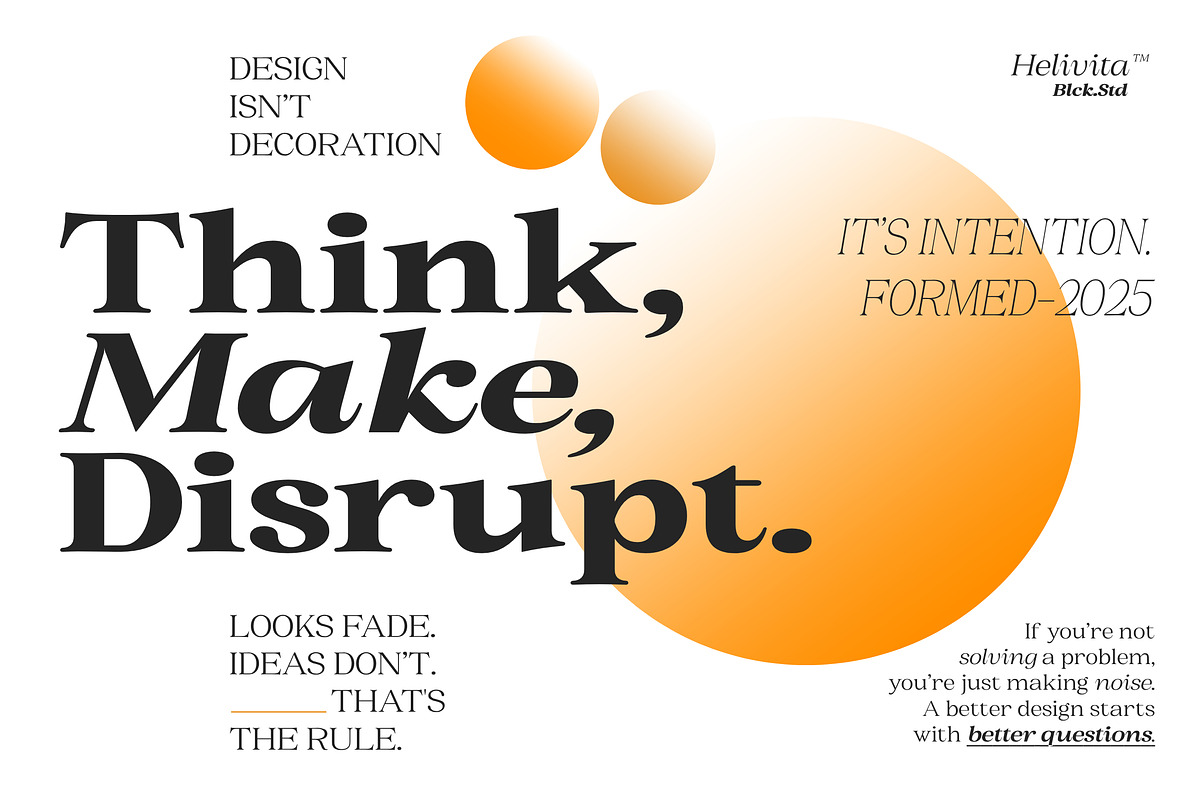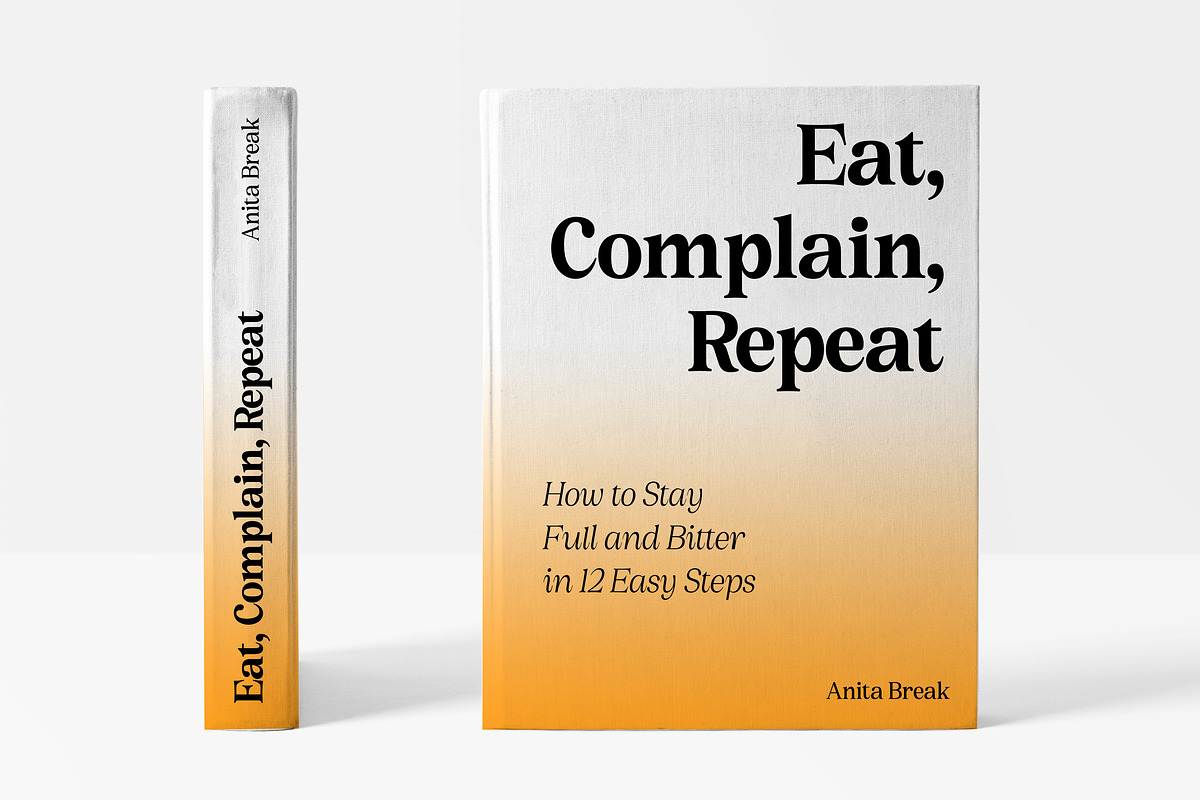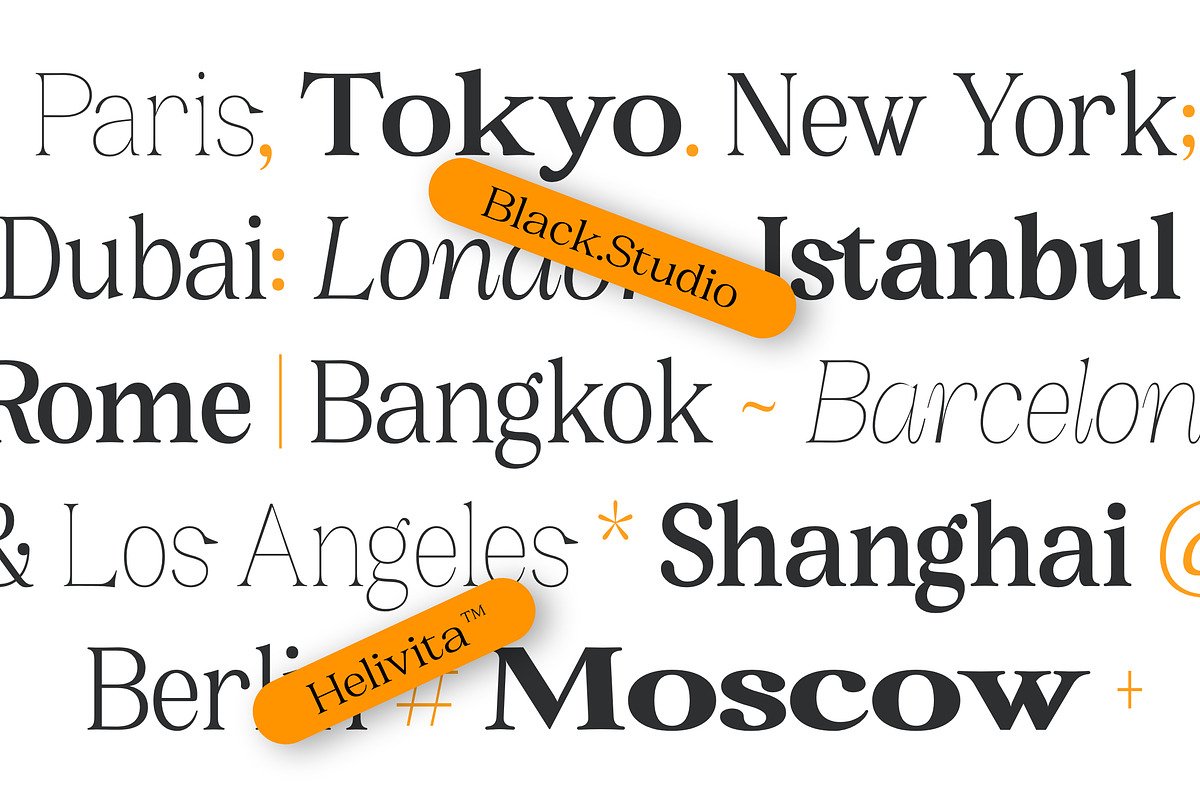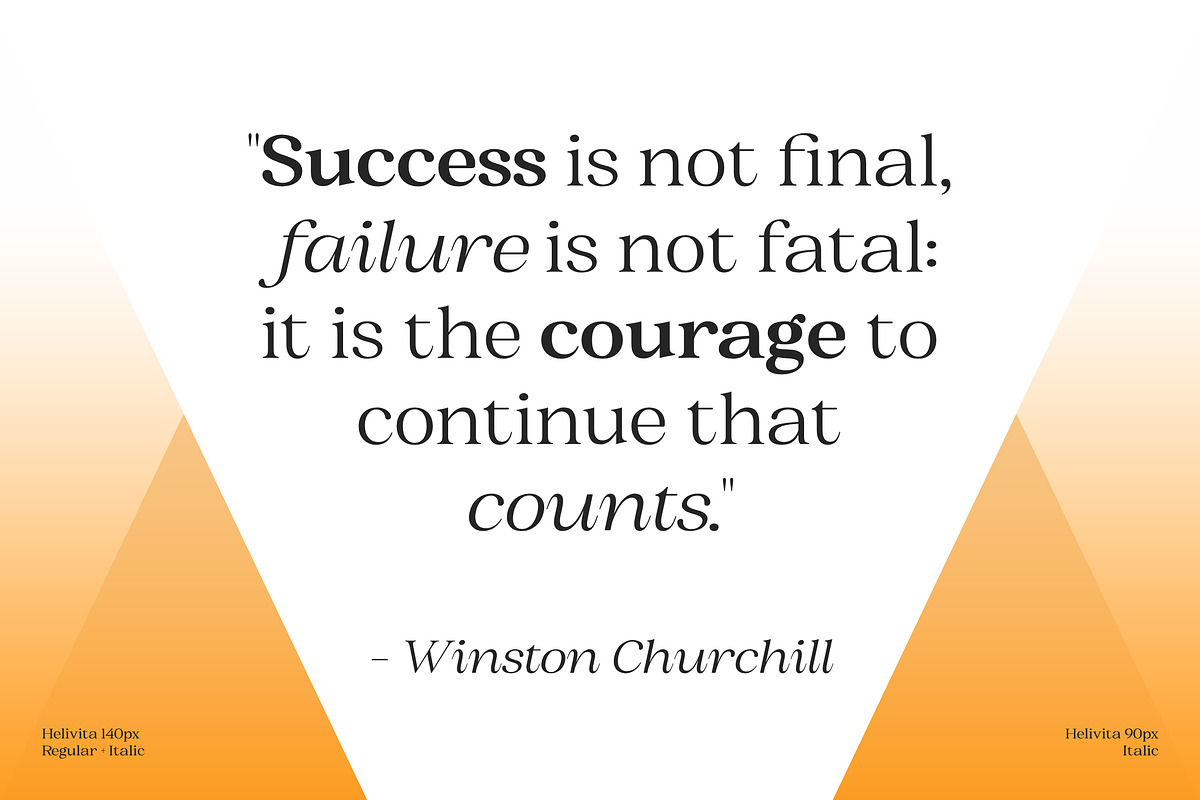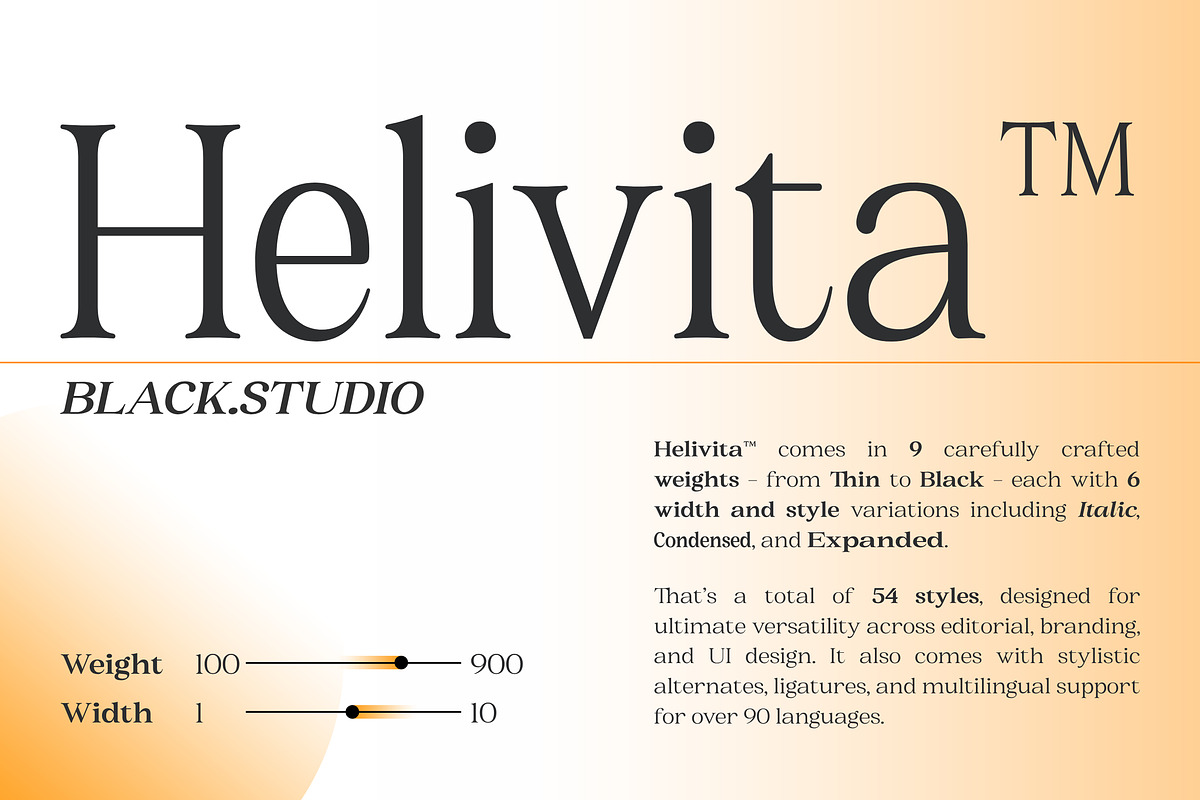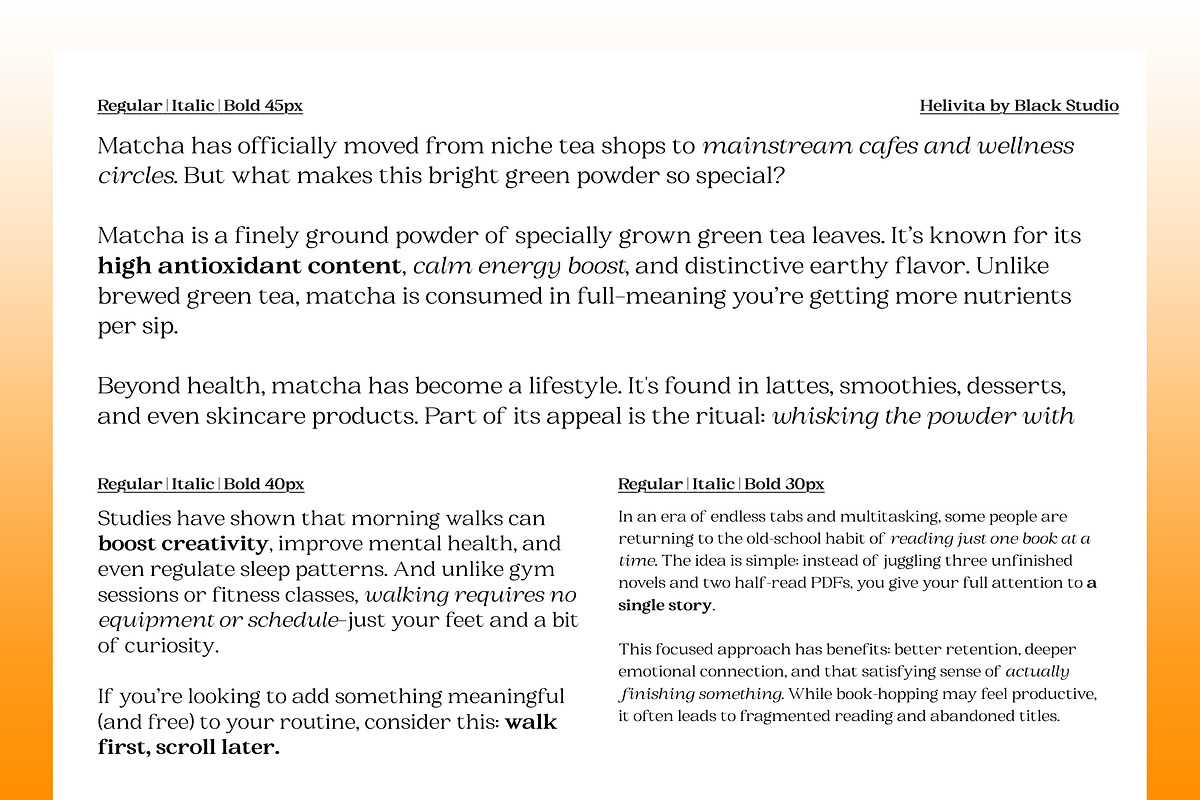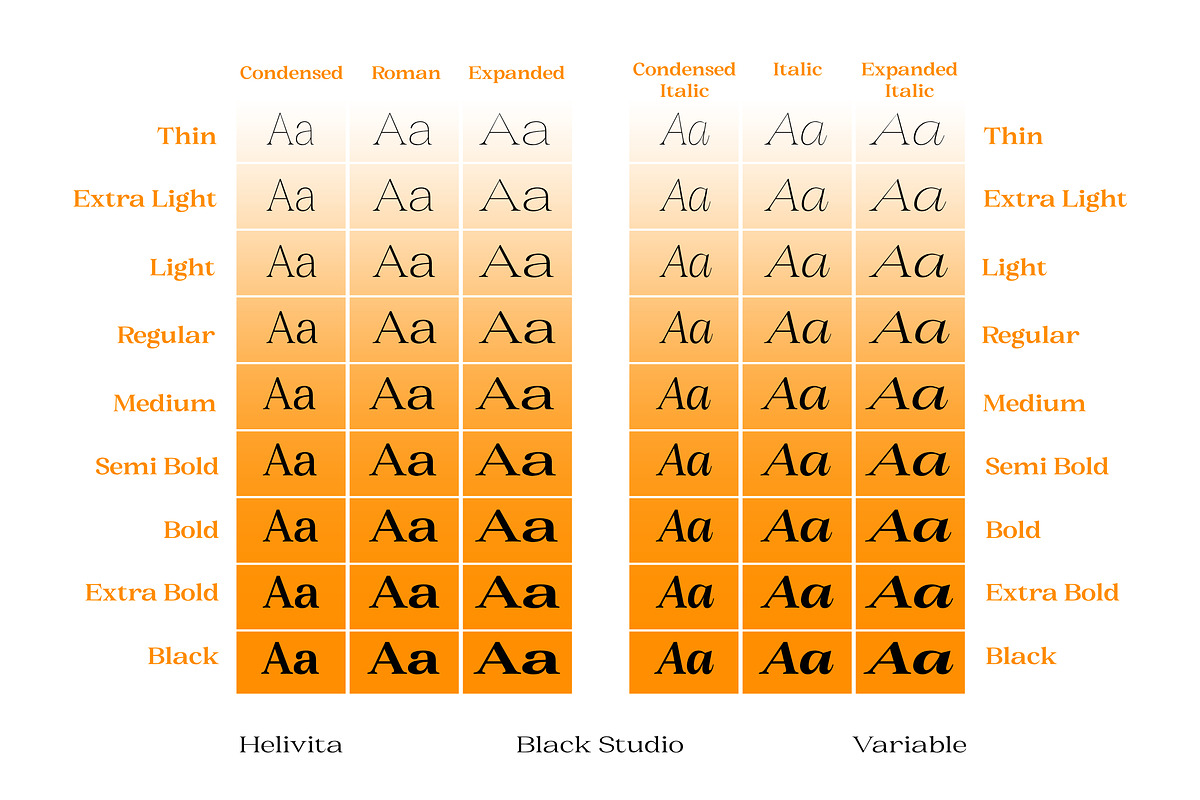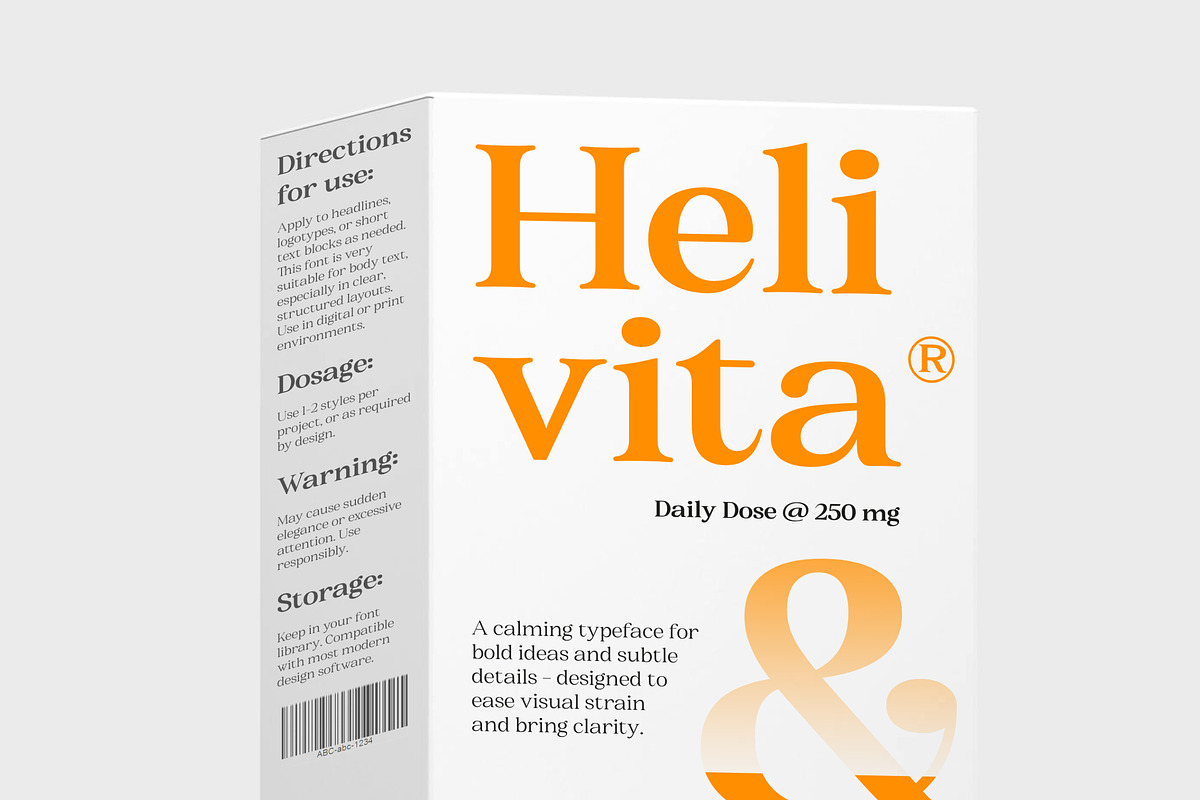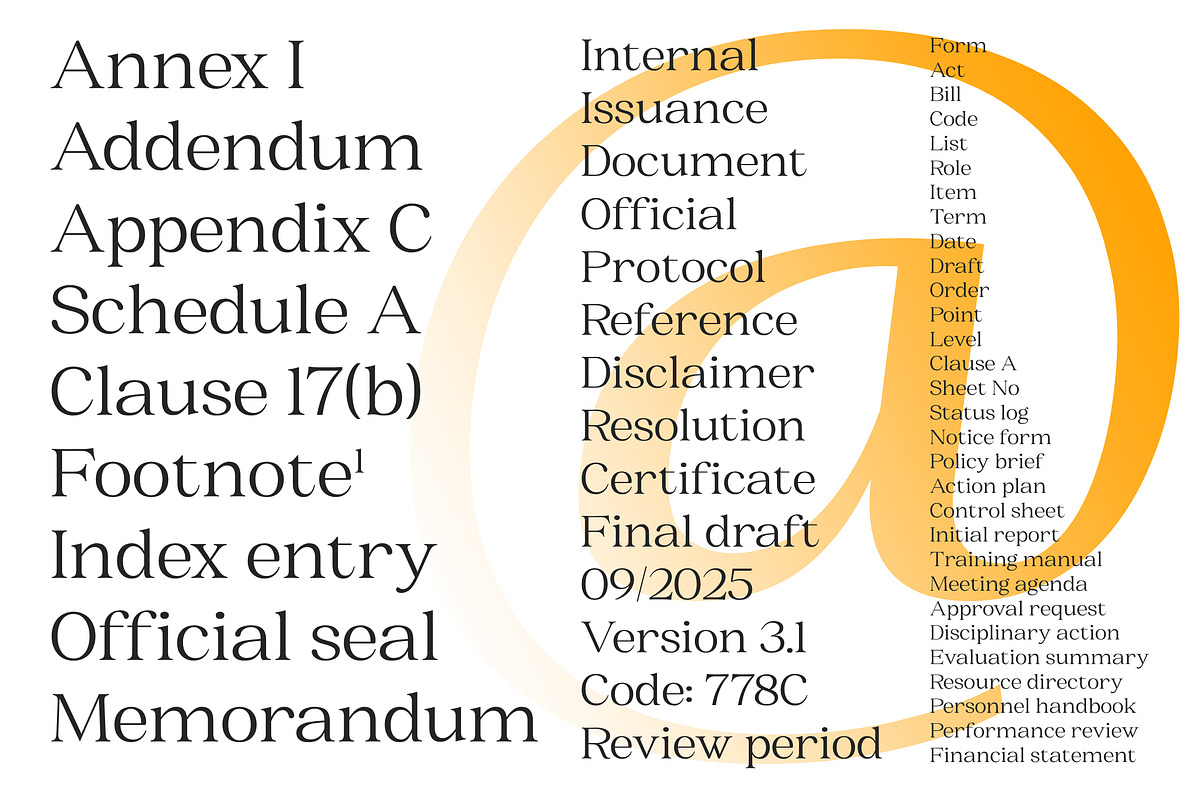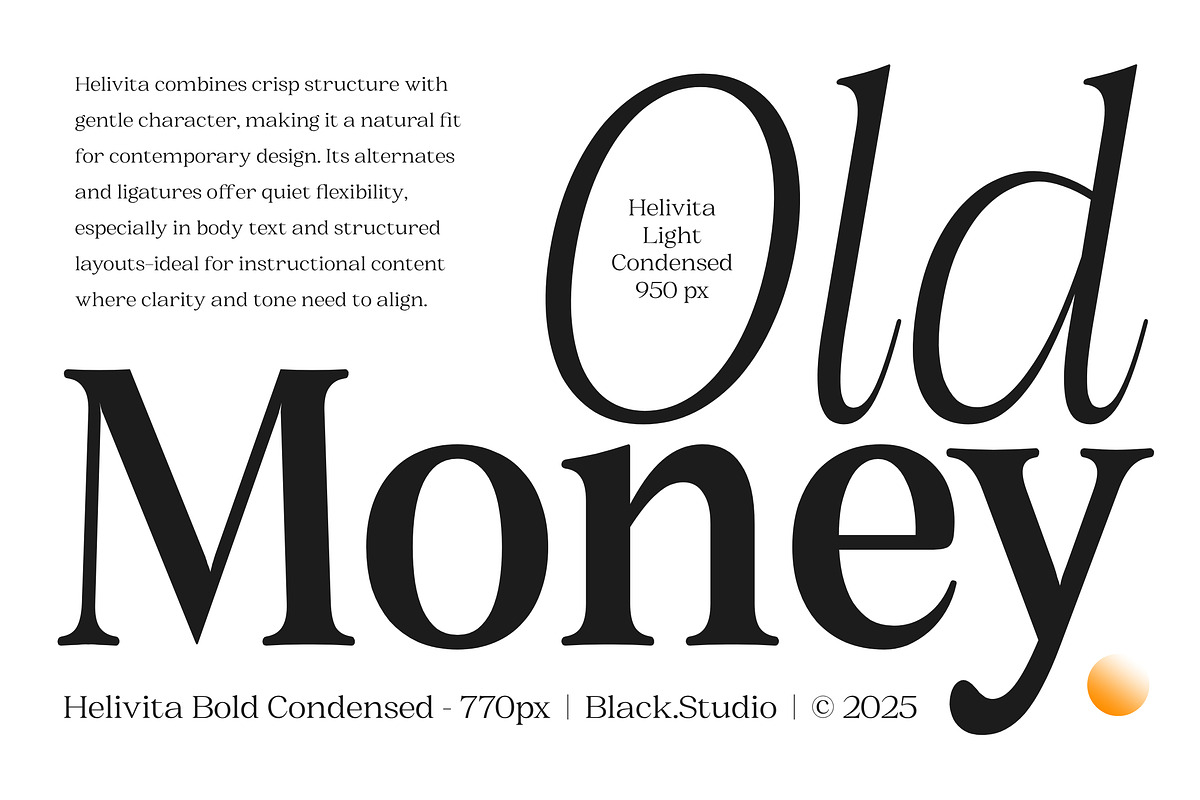
BS Helivita
BS Helivita™ — Modern Elegance Meets Typographic Versatility BS Helivita™ is a sophisticated serif typeface designed to bring refined elegance and functional versatility to your typography. Featuring 9 meticulously balanced weights from Thin to Black, each weight is complemented by 6 width and style variations—including Italic, Condensed, and Expanded—giving you a total of 54 dynamic styles to work with.
Crafted with precision for editorial design, branding, and user interfaces, BS Helivita™ combines timeless form with modern flexibility. Its clean curves, stylish alternates, and powerful ligatures make it an ideal choice for high-end projects that demand both beauty and performance.
With extensive multilingual support covering over 90 languages, BS Helivita™ ensures your message resonates globally. Whether you're designing a luxurious magazine spread or a bold visual identity, BS Helivita™ adapts effortlessly to every creative need.